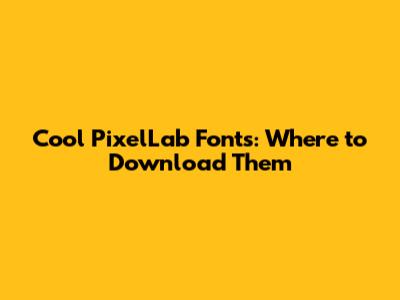
- Consider your brand: Your font should reflect your brand's personality. A playful brand might use a whimsical font, while a professional brand might use a more classic font.
- Think about readability: Make sure your font is easy to read, especially for smaller text sizes.
- Use font pairings: Combine different fonts to create visual interest. A common strategy is to pair a serif font with a sans-serif font.
- Don't overdo it: Using too many different fonts can make your design look cluttered. Stick to a maximum of two or three fonts per project.
Hey guys! Are you looking to spice up your PixelLab projects with some awesome fonts? You've come to the right place! PixelLab is a fantastic tool for creating stunning graphics on your mobile device, but the default fonts can sometimes feel a little... well, boring. Let's dive into the world of font downloads and get your designs looking fresh.
Why Custom Fonts Matter for PixelLab
Before we jump into where to download these gems, let's chat about why custom fonts are so important for your PixelLab creations. Fonts are more than just letters; they're a crucial part of your design's personality. The right font can instantly communicate the tone and style you're aiming for, whether it's playful, professional, modern, or vintage. Think of fonts as the clothing your words wear – they can make a huge difference in how your message is received.
Imagine you're designing a poster for a kids' birthday party. Would you use a serious, blocky font like Times New Roman? Probably not! You'd want something fun, bubbly, and easy to read, like a handwritten-style font or a cartoonish typeface. On the other hand, if you're creating a logo for a law firm, you'd need a font that conveys trust, authority, and professionalism. A clean, classic serif font might be a good choice in that case. By choosing the right fonts, you can ensure that your designs not only look great but also effectively communicate your intended message. Plus, using custom fonts helps your work stand out from the crowd. When everyone else is using the same default options, you can create something truly unique and eye-catching by incorporating fonts that reflect your personal style or brand identity. Ultimately, custom fonts are a powerful tool for enhancing your designs and making a lasting impression.
Where to Find Awesome Fonts for PixelLab
Okay, so you're convinced that custom fonts are the way to go. Great! Now, where do you actually find these fonts? Luckily, the internet is a treasure trove of font resources, both free and paid. Here are some of my favorite places to hunt for the perfect PixelLab fonts:
1. DaFont
DaFont is a classic for a reason. It's a massive archive of free fonts, with a huge variety of styles to choose from. You can easily search for fonts by category (e.g., fancy, cartoon, gothic, basic) or use the preview tool to see how your text will look in a specific font. Remember to check the license before using a font for commercial purposes, as some fonts are only free for personal use. Navigating DaFont is pretty straightforward. You'll see a search bar where you can type in keywords like "script," "bold," or "retro" to find fonts that match your desired aesthetic. Each font listing typically includes a preview of the font in various sizes and styles, as well as information about the author and licensing terms. Pay close attention to the licensing details to ensure that you're using the font legally and ethically. DaFont also has a handy forum where you can ask questions, share your font finds, and get inspiration from other designers. It's a great community to be a part of if you're passionate about typography. One of the cool things about DaFont is that it's constantly being updated with new fonts from designers all over the world. This means you can always find fresh and exciting options to add to your collection. Just be sure to download fonts from reputable sources to avoid any potential security risks. Overall, DaFont is an excellent resource for anyone looking to expand their font library without breaking the bank. With its vast selection, user-friendly interface, and helpful community, it's a must-visit for PixelLab users and designers alike. You can spend hours browsing through the endless options and discovering hidden gems that will take your designs to the next level.
2. Google Fonts
Google Fonts is another fantastic resource, especially because all the fonts are completely free to use, even for commercial projects! The selection is curated and high-quality, with a focus on readability and usability. Plus, Google Fonts integrates seamlessly with many design tools, making it easy to add fonts to your projects. Google Fonts is a game-changer for designers, offering a vast library of high-quality fonts that are completely free to use for both personal and commercial projects. What sets Google Fonts apart is its commitment to open-source licensing, meaning you can use, distribute, and even modify the fonts without any restrictions. This makes it an ideal choice for businesses, designers, and anyone who wants to create visually appealing content without worrying about licensing fees or legal issues. The selection of fonts on Google Fonts is incredibly diverse, ranging from classic serif and sans-serif typefaces to more modern and decorative options. Whether you're designing a website, creating marketing materials, or working on a personal project, you're sure to find a font that fits your needs. Google Fonts also provides helpful information about each font, including its history, designer, and recommended usage. This can be invaluable for making informed decisions about which fonts to use in your projects. Another great feature of Google Fonts is its integration with various design tools and platforms. You can easily add Google Fonts to your website using a simple code snippet, or import them directly into your favorite design software like Adobe Photoshop or Canva. This makes it incredibly convenient to use Google Fonts in your workflow, saving you time and effort. Overall, Google Fonts is an essential resource for anyone who cares about typography. Its vast selection of free, high-quality fonts, combined with its open-source licensing and easy integration with design tools, makes it a must-have for designers of all levels.
3. FontSpace
FontSpace is similar to DaFont, offering a wide range of free fonts with a user-friendly interface. You can browse by category, popularity, or recent additions. Again, always double-check the license before using a font in your projects. FontSpace stands out as a vibrant hub for font enthusiasts, offering a vast collection of free fonts contributed by designers from around the globe. With its user-friendly interface and intuitive navigation, FontSpace makes it easy to discover the perfect typeface for any project. Whether you're searching for a classic serif, a modern sans-serif, or a whimsical script font, FontSpace has something to suit every taste and style. One of the key features of FontSpace is its extensive tagging system, which allows you to filter fonts by category, style, and even mood. This makes it incredibly efficient to narrow down your search and find exactly what you're looking for. You can also browse fonts by popularity, recent additions, or designer, giving you even more ways to explore the collection. FontSpace also fosters a strong sense of community among font designers and users. You can create a profile, upload your own fonts, and connect with other designers to share feedback and inspiration. The site also features a forum where you can ask questions, participate in discussions, and stay up-to-date on the latest trends in typography. When downloading fonts from FontSpace, it's important to pay attention to the licensing terms. While most fonts are free for personal use, some may have restrictions on commercial use. Be sure to carefully review the license agreement before using a font in any project that will be used for profit. Overall, FontSpace is a fantastic resource for anyone looking to expand their font library without breaking the bank. With its vast selection of free fonts, user-friendly interface, and vibrant community, it's a must-visit for designers, students, and hobbyists alike. Whether you're working on a website, a presentation, or a personal project, FontSpace has the perfect font to help you bring your vision to life.
4. Creative Market
If you're willing to spend a few bucks for premium fonts, Creative Market is an excellent choice. They offer a curated selection of high-quality fonts from independent designers, often with unique and artistic styles. You can find font bundles that offer great value for money. Creative Market is a treasure trove for designers seeking unique and high-quality fonts. Unlike free font websites, Creative Market focuses on offering premium fonts created by independent designers from around the world. This means you'll find a diverse range of styles and aesthetics that you won't find anywhere else. While you'll have to pay for these fonts, the investment is often worth it for the quality and originality you receive. The fonts on Creative Market are typically designed with meticulous attention to detail, ensuring that they look great in a variety of applications. You'll find fonts that are perfect for branding, web design, print projects, and more. Creative Market also offers font bundles, which can be a great way to save money if you need a variety of fonts for your projects. These bundles often include several fonts from the same designer, or a collection of fonts that complement each other well. One of the best things about Creative Market is that it supports independent designers. When you purchase a font from Creative Market, you're directly supporting the artist who created it. This helps to foster a thriving community of designers and ensures that they can continue to create high-quality resources for the design community. Creative Market also offers a variety of other design assets, such as graphics, templates, and photos. This makes it a one-stop shop for all your design needs. Whether you're a professional designer or just starting out, Creative Market is a valuable resource for finding the perfect fonts and other design assets to bring your vision to life. Just be sure to carefully review the licensing terms before using a font in your projects, as they may vary depending on the designer. Overall, Creative Market is an excellent choice for designers who are looking for premium fonts that are both unique and high-quality. While you'll have to pay for these fonts, the investment is often worth it for the originality and craftsmanship you receive. Plus, you'll be supporting independent designers and helping to foster a thriving design community.